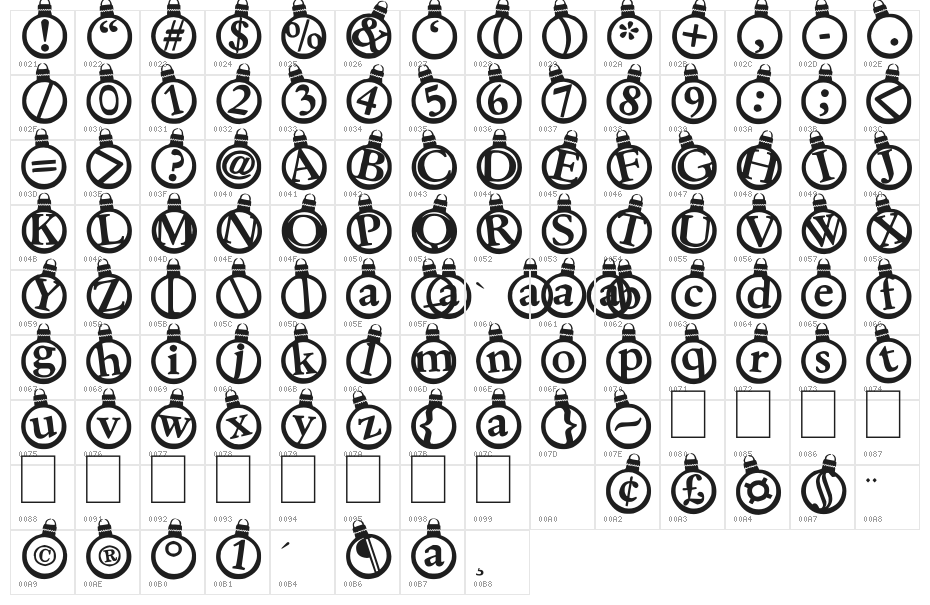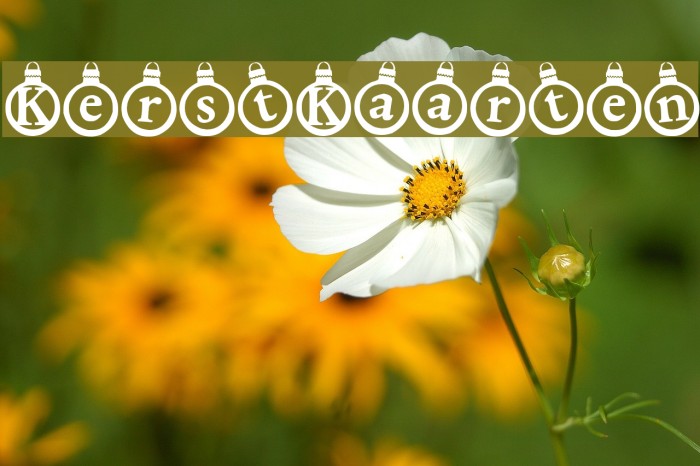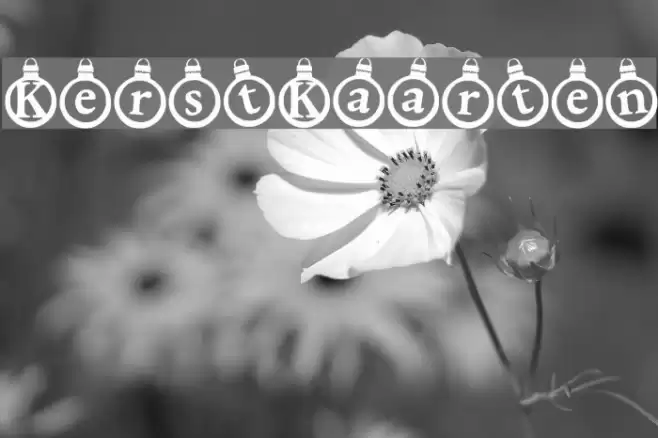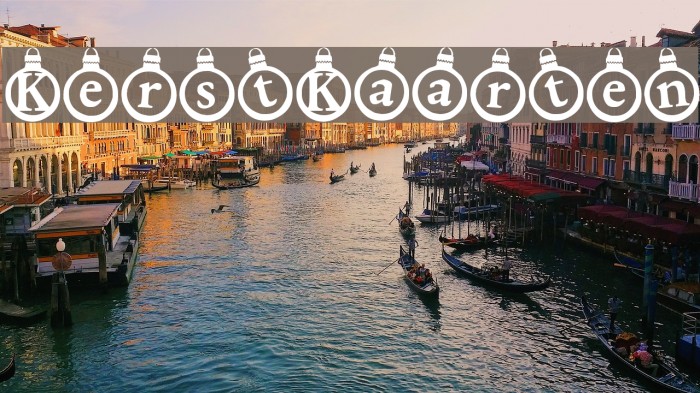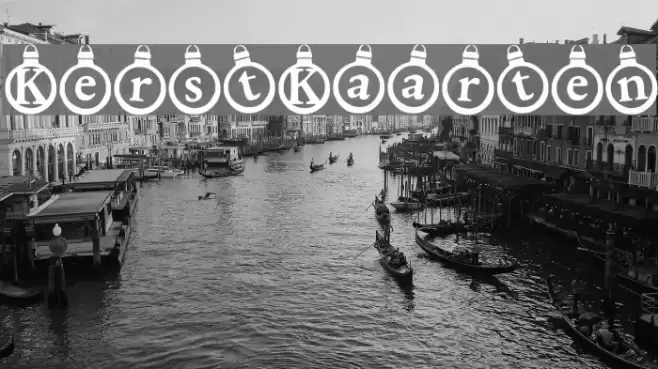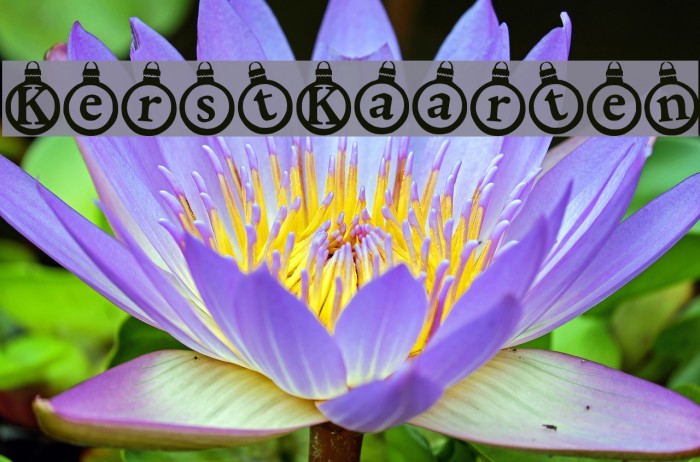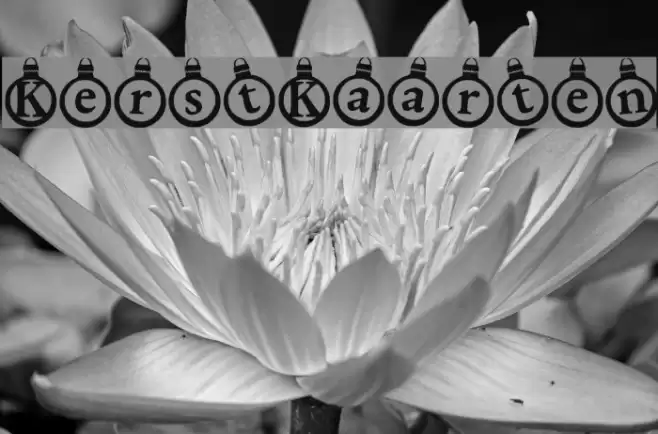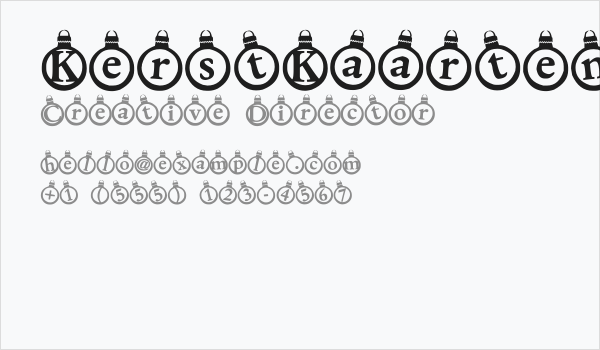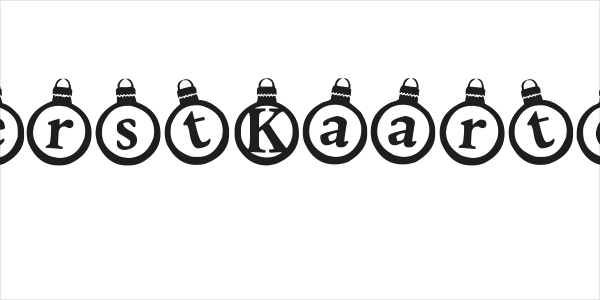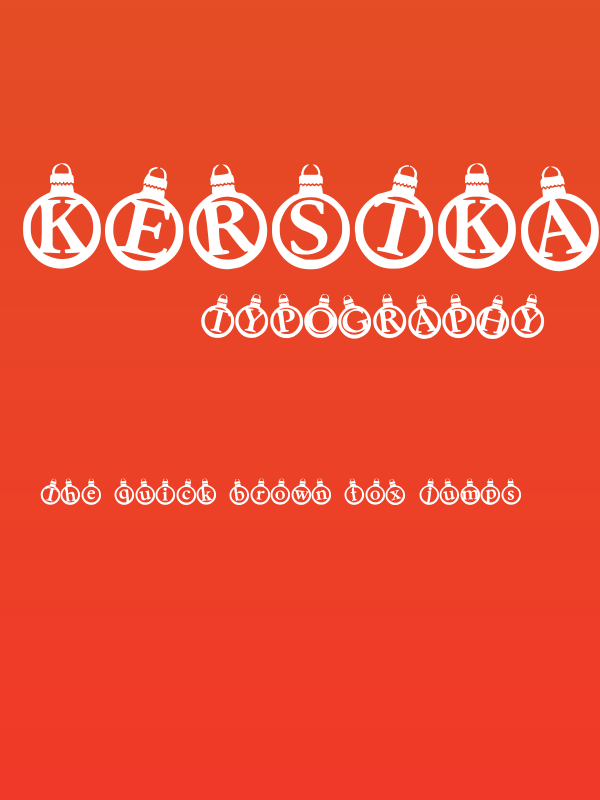
KerstKaarten Font
KerstKaarten Description
This playful and festive font is designed to resemble Christmas ornaments, with each character encased in a circular bauble complete with a small hook at the top. The letters are bold and rounded, providing a cheerful and whimsical appearance. The uppercase and lowercase letters maintain a consistent style, while the numbers and special characters are also integrated into the ornament design. The overall look is decorative and thematic, perfect for holiday-themed projects. The font's unique style makes it stand out, capturing the joyful essence of the holiday season.
| Proposed Projects | Ideal for Christmas cards, holiday invitations, festive banners, and seasonal marketing materials. |